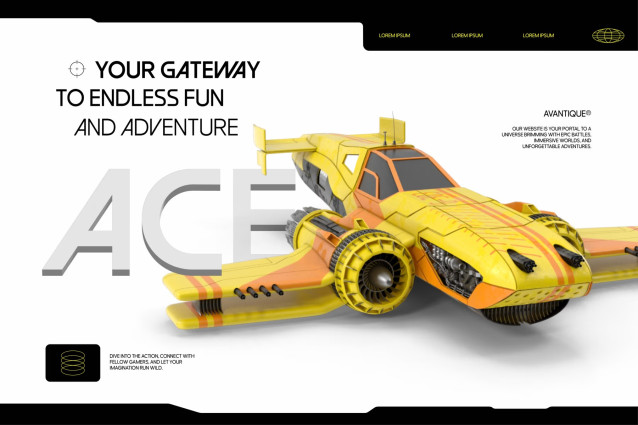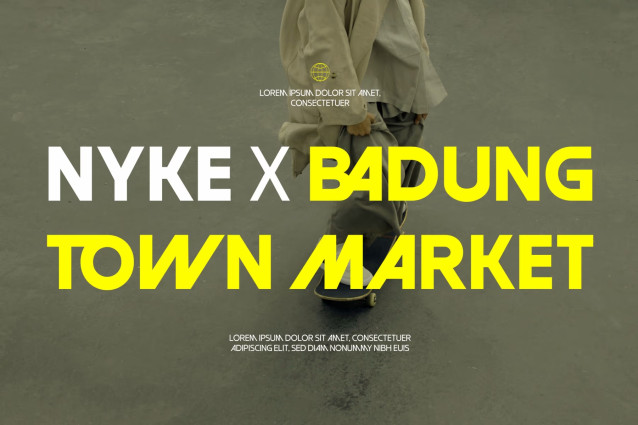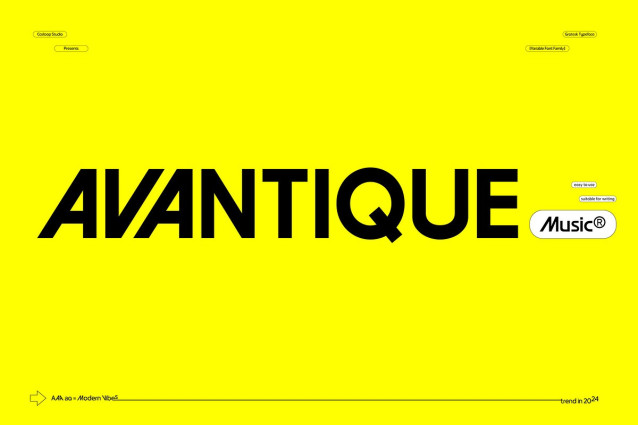
Avantique Geometric Variable 7 Fonts
Introducing Avantique a Sans Serif Geometric font that seamlessly blends geometric precision with modern elegance. This font, designed with a keen sense of harmony, is your go-to choice for various design projects.
Avantique stands out with its clean lines and basic geometric shapes, creating a contemporary feel that resonates with the dynamic styles of the 1960s and 1970s. The font’s Sans Serif Geometric classification ensures consistency and originality, reflecting a sleek and modern aesthetic.
Especially crafted for Editorial Design, titles, posters, and promotional materials, Avant ique is designed to capture attention instantly. Its clarity and sharp design leave a lasting impression, making it perfect for Website, packaging, Logo, Branding, album covers, 3D projects, Logotypes, Bands, Music, and Posters.
Avant ique offers a stunning array of features, from its impressive range of Thin to Black weights, providing flexibility for various design applications. The font’s unique characters, including the distinctive “A,” “M,” “V”, and “W,” add an eccentric twist to your projects. It allows for vibrant and youthful expressions, making your designs stand out effortlessly.
Functionality is at the core of Avant ique. The font’s adaptability to modern and futuristic designs makes it a popular choice for contemporary design projects. Whether you’re working on a intro logo, editorial layout, or album cover, Avantique delivers a gorgeous and satisfying visual experience.